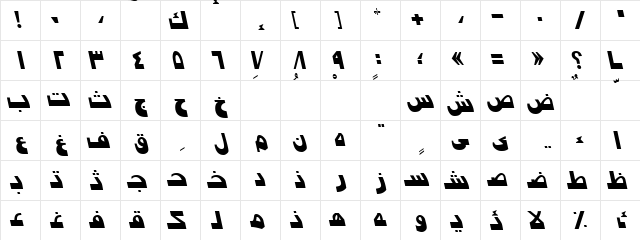
Arabic7ModernSSK Italic
Design Context for Arabic7ModernSSK Typeface
Arabic7ModernSSK takes a measured approach to typography — its balanced proportions and neutral character make it a reliable workhorse for both digital and print work. The slanted form adds forward momentum and visual energy.